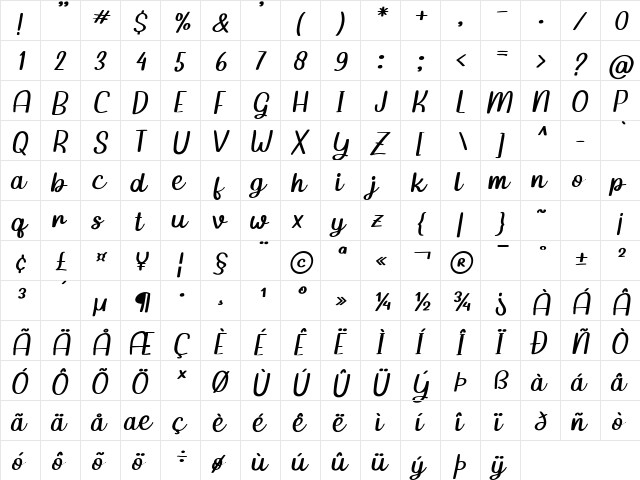
Gladione Regular
Design Context for Gladione Typeface
Gladione is a composed and adaptable typeface that performs quietly and consistently across a wide range of design contexts.